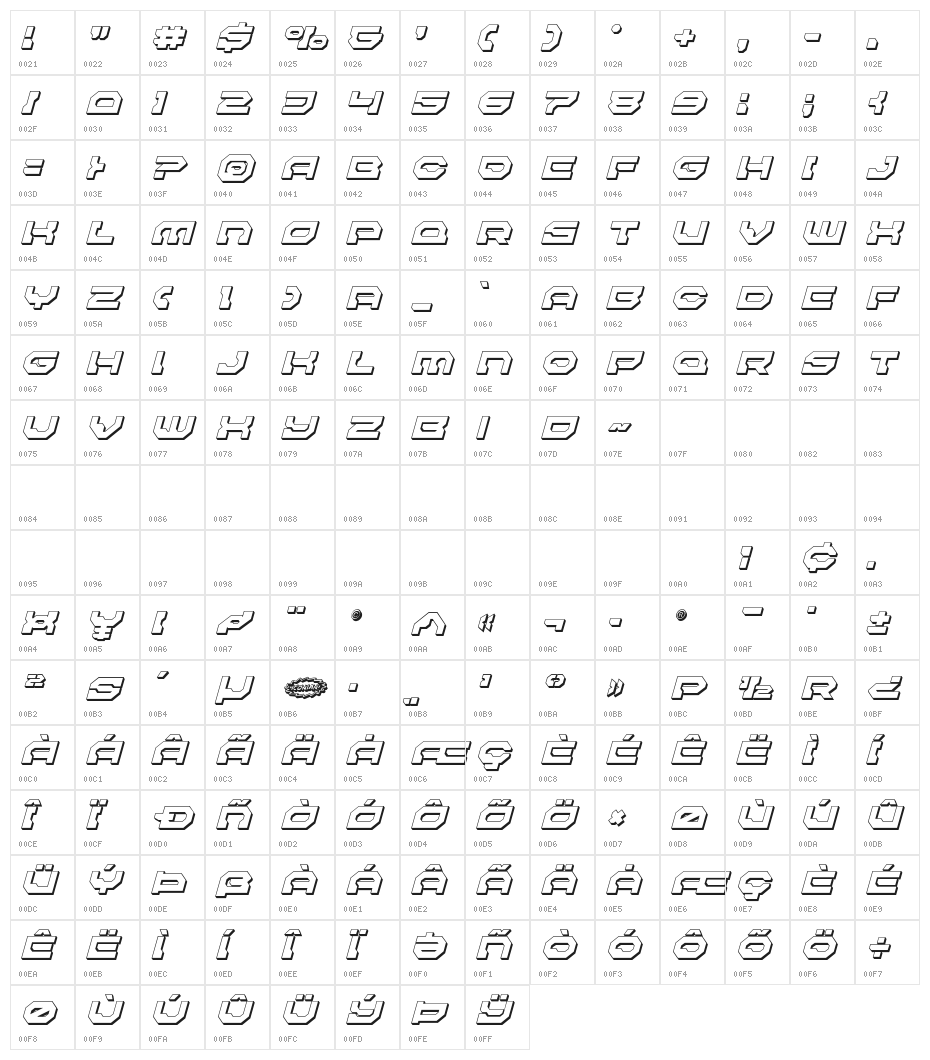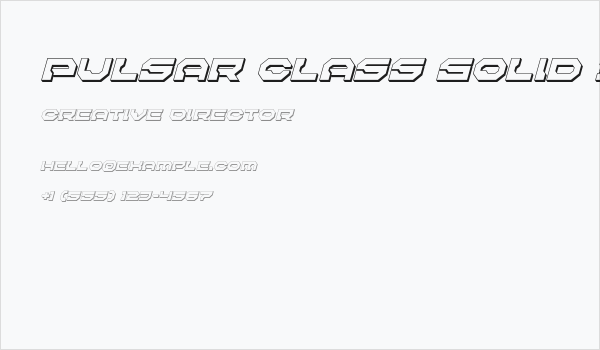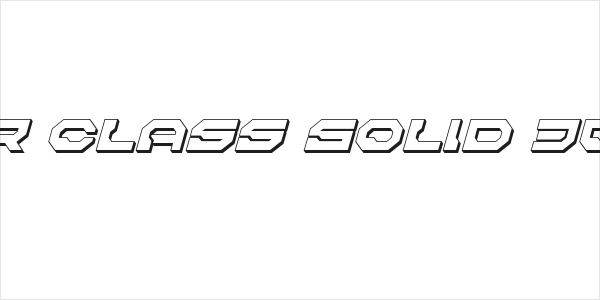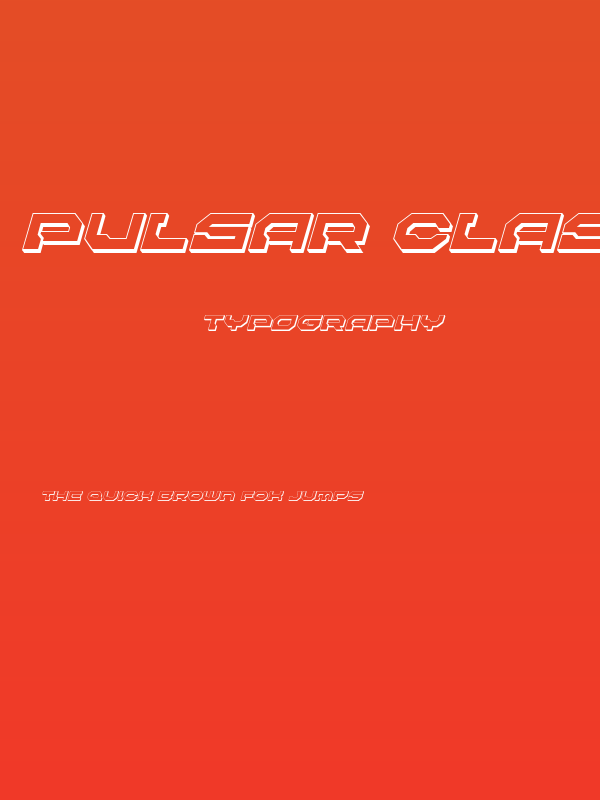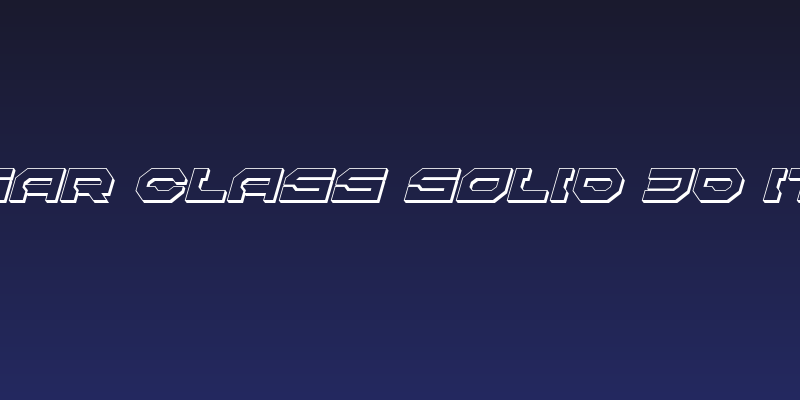
Pulsar Class Solid 3D Italic Font
Pulsar Class Solid 3D Italic Description
This font features a bold, three-dimensional design with a futuristic and dynamic appearance. The characters are outlined with a solid shadow effect, giving them a sense of depth and movement. The italicized style adds a forward-leaning energy, making it ideal for projects that require a modern and eye-catching look. The uppercase and lowercase letters maintain a consistent style, while the numerals and special characters complement the overall aesthetic. This font is perfect for creating impactful headlines, logos, and posters that demand attention.
| Proposed Projects | Ideal for sci-fi themed designs, video game titles, tech company logos, and modern advertising campaigns. |